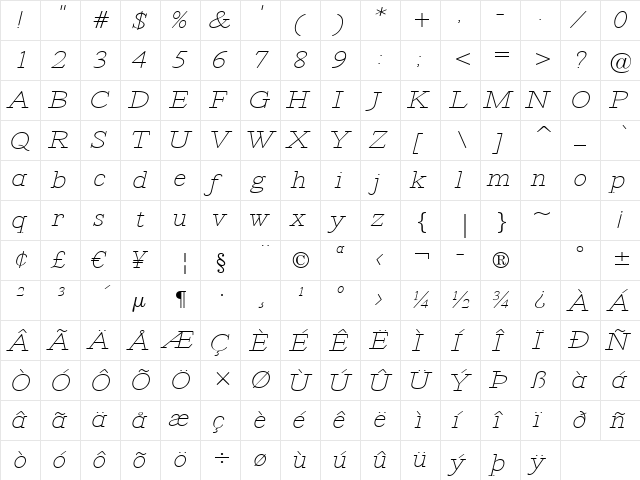
Revelation BTN Exp Oblique
Design Context for Revelation BTN Exp Typeface
Revelation BTN Exp takes a measured approach to typography — its balanced proportions and neutral character make it a reliable workhorse for both digital and print work. Its italic angle brings a sense of urgency and motion to the letterforms.
Pro Tip: Use Revelation BTN Exp for emphasis, pull quotes, and subheadings where its slanted energy can add rhythm to the layout.